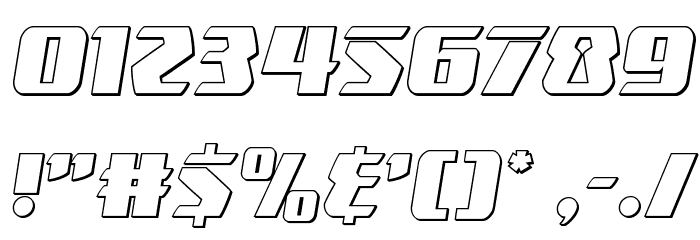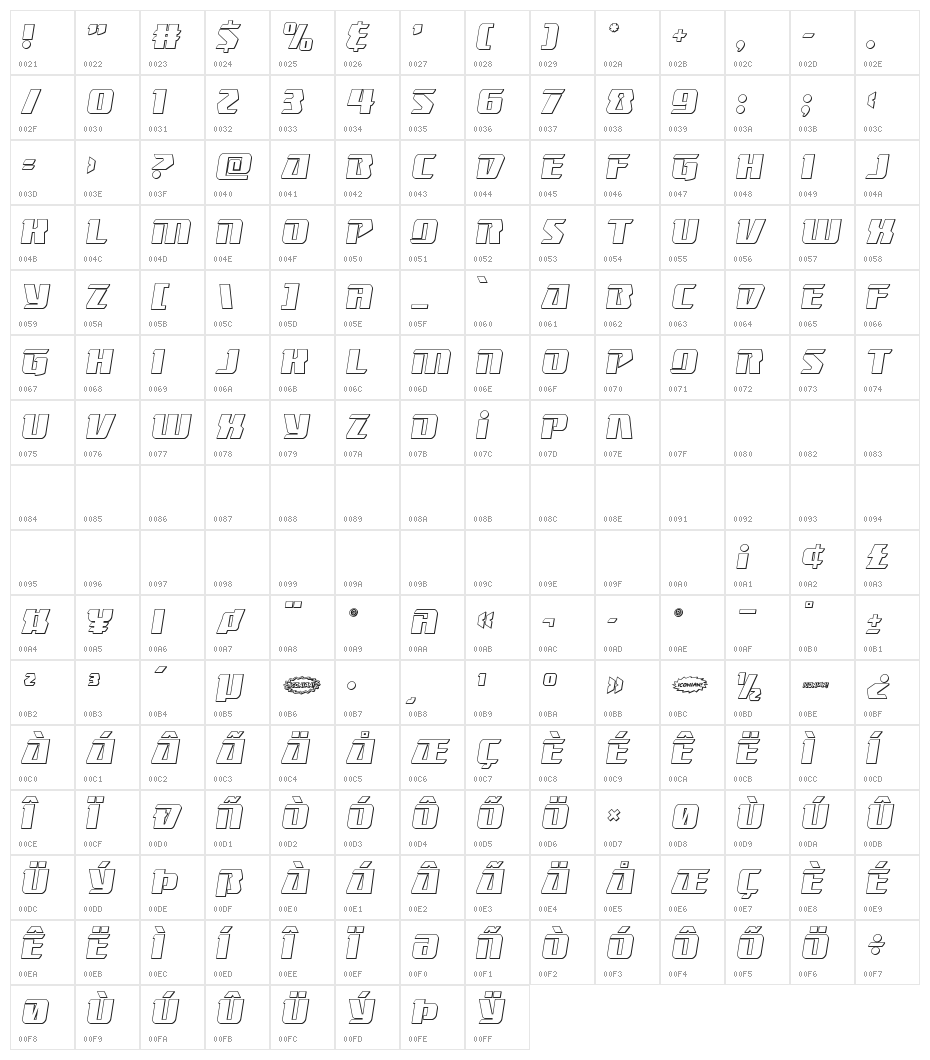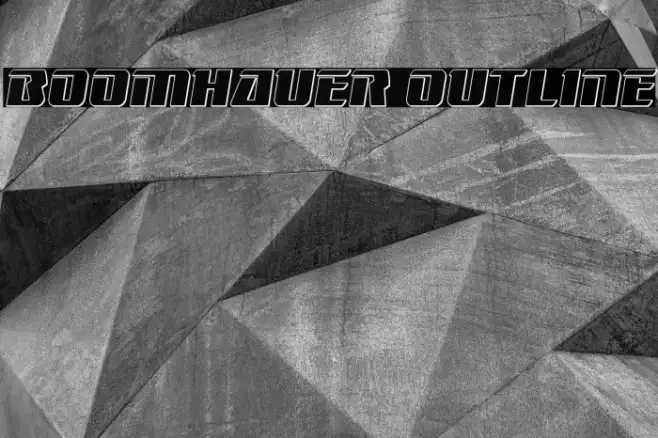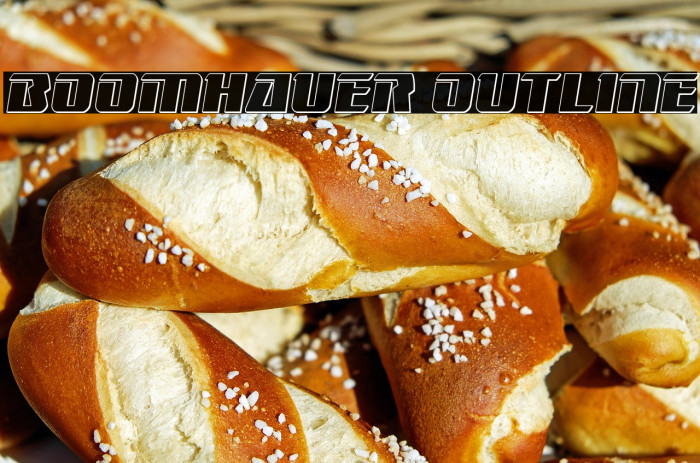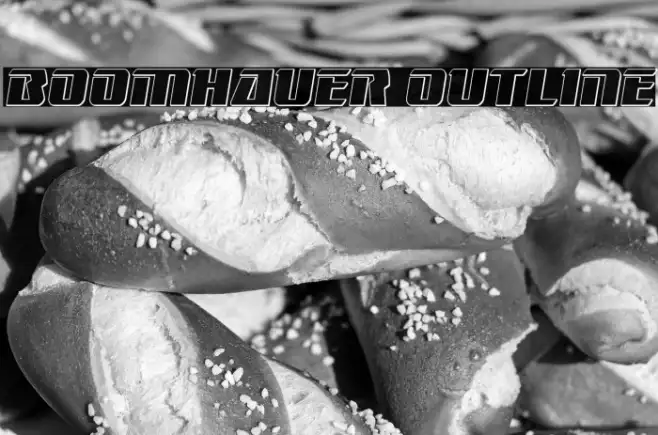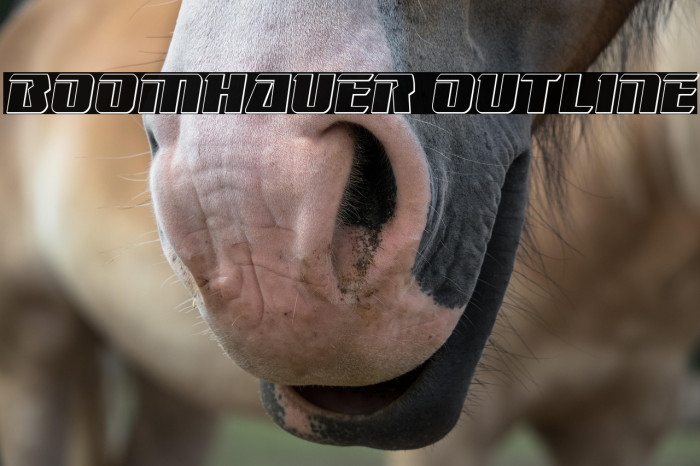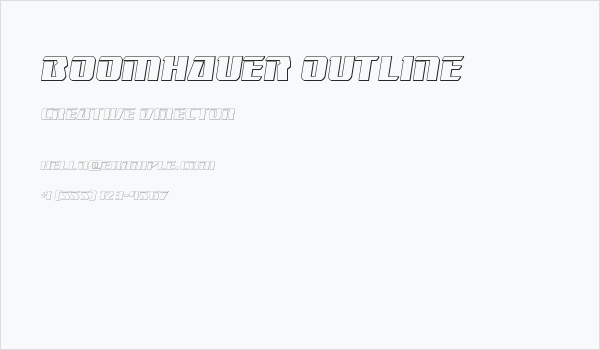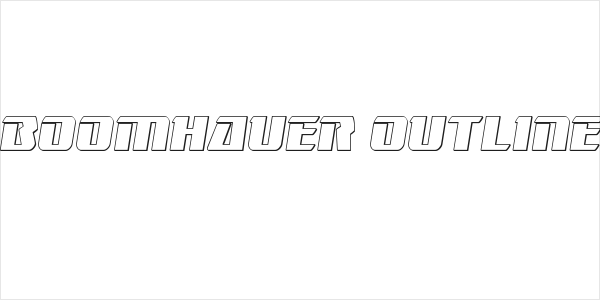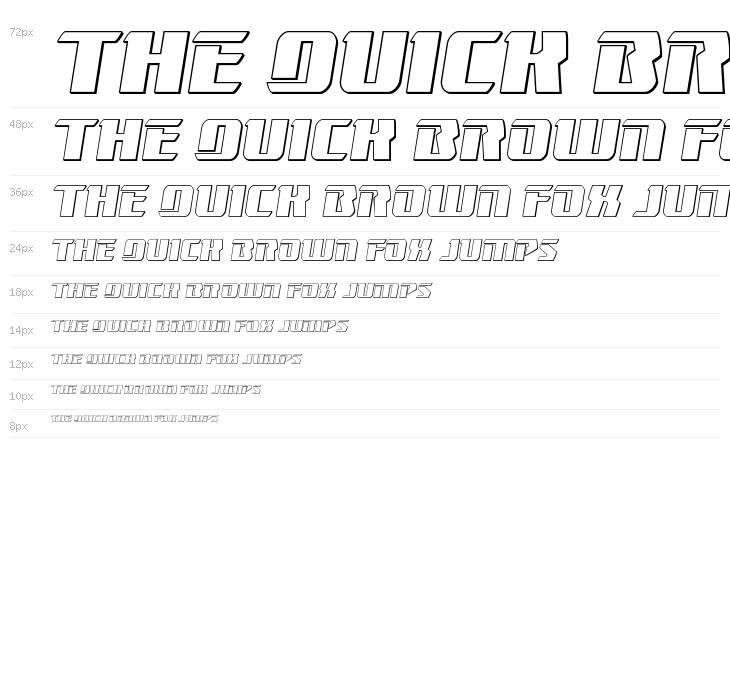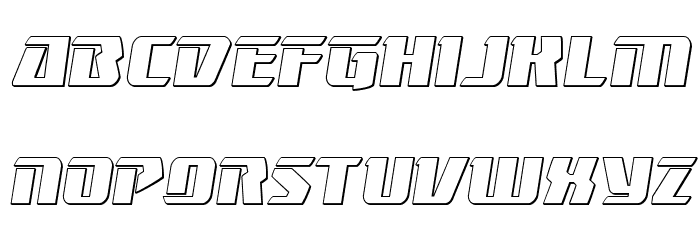
Boomhauer Outline Font
Boomhauer Outline Description
This font features a bold, geometric outline style that gives it a modern and edgy appearance. The characters are constructed with sharp angles and straight lines, creating a sense of movement and dynamism. The uppercase and lowercase letters maintain a consistent design, with a slightly condensed width that enhances the compact look. Numbers and special characters follow the same stylistic approach, ensuring uniformity across all glyphs. The outline effect adds a layer of depth, making the font suitable for eye-catching designs. Its unique style is ideal for projects that require a futuristic or tech-inspired aesthetic.